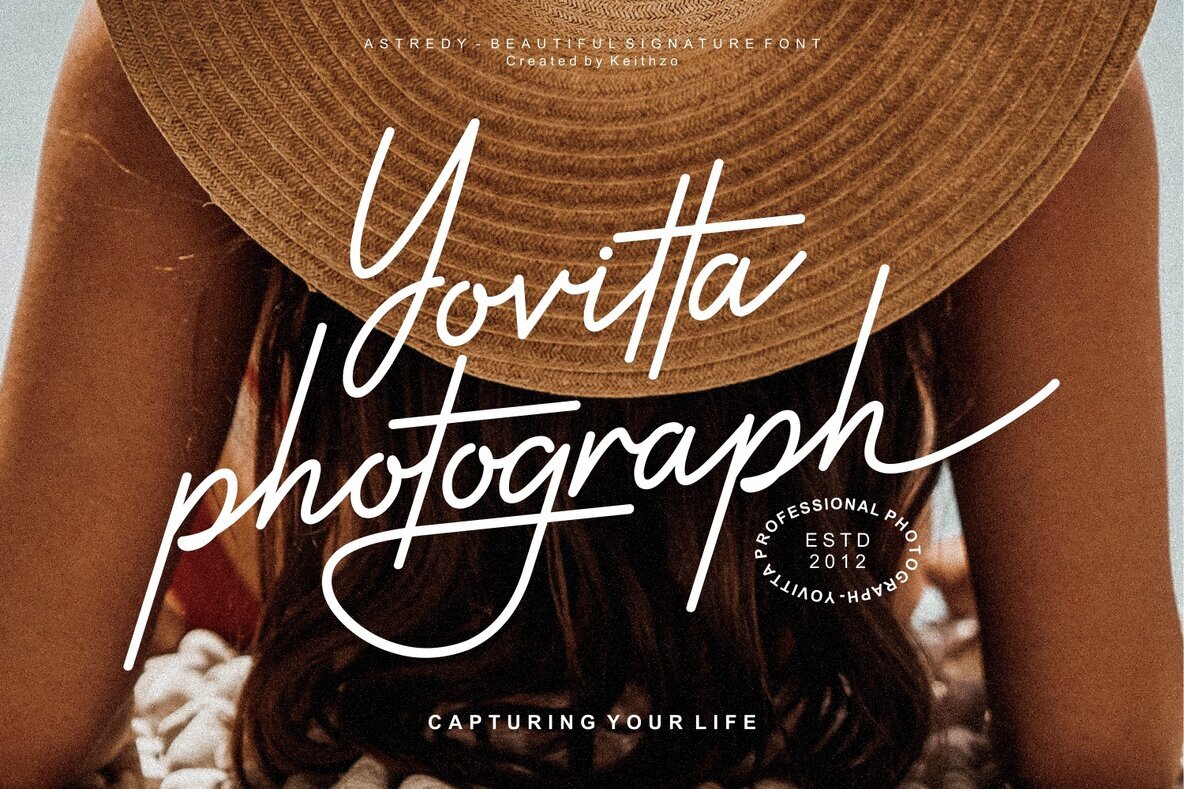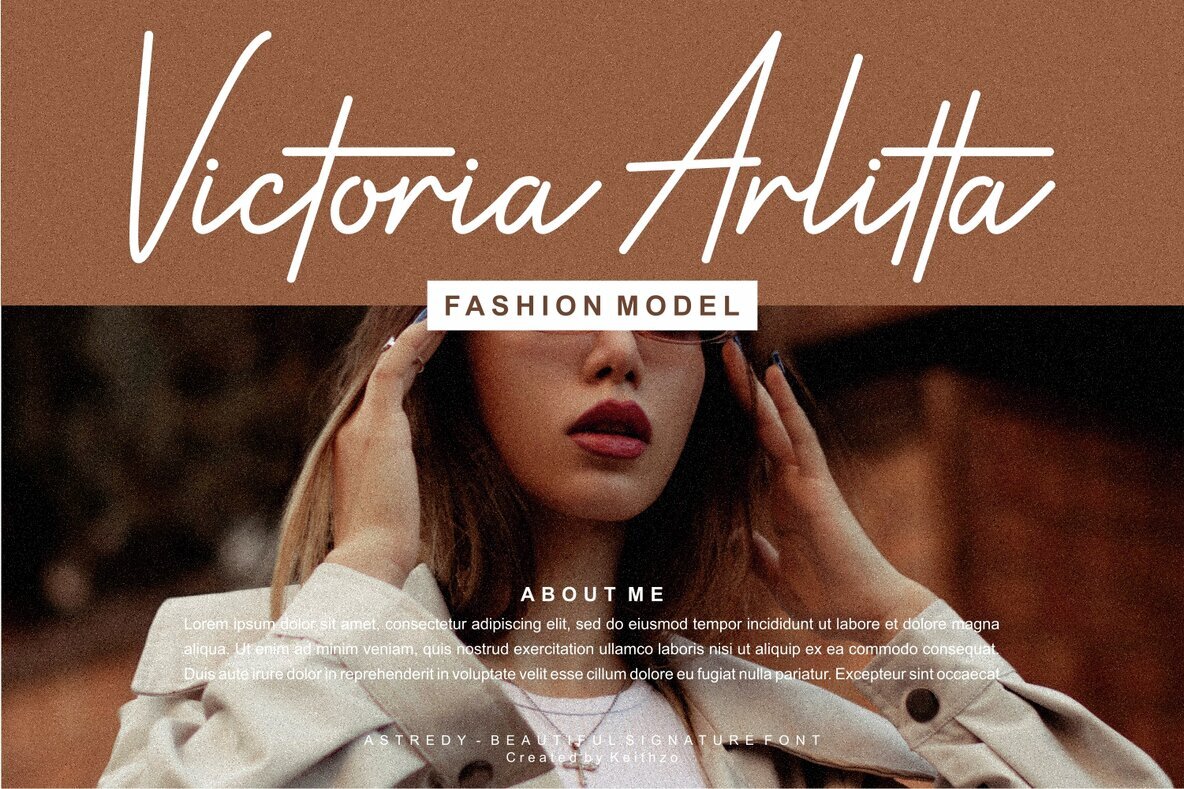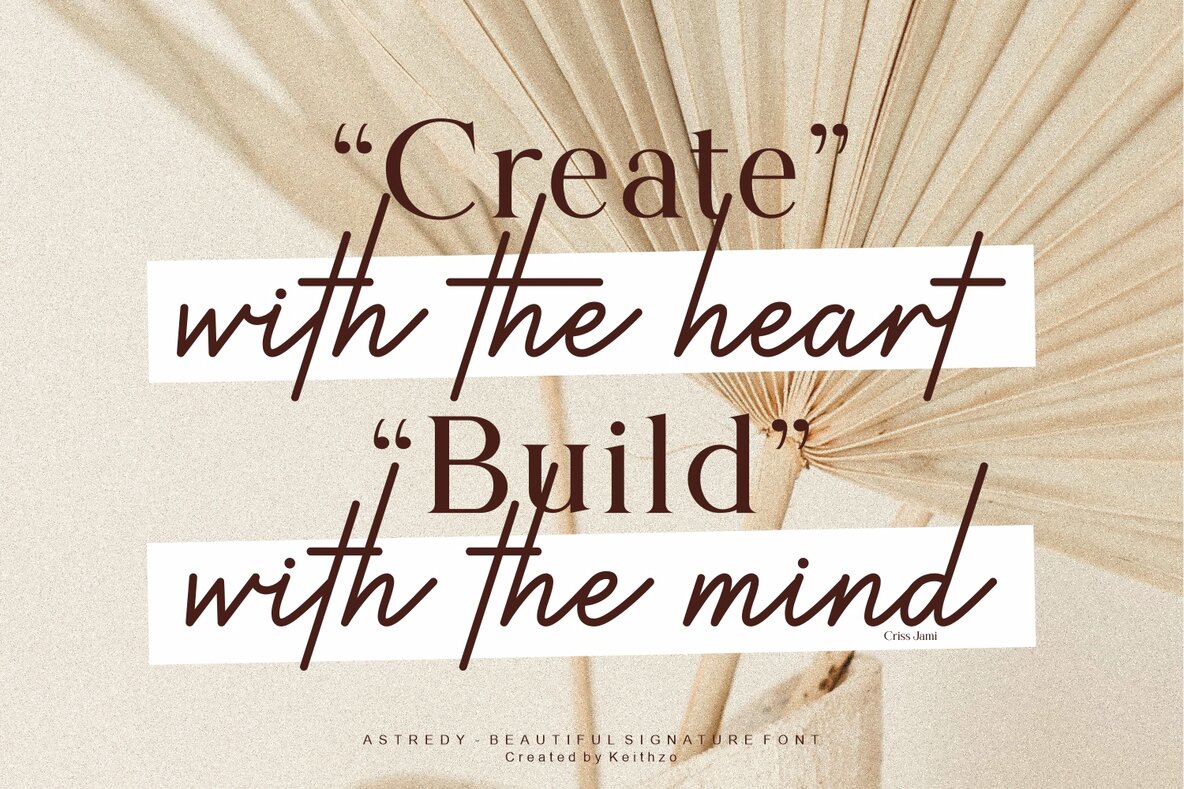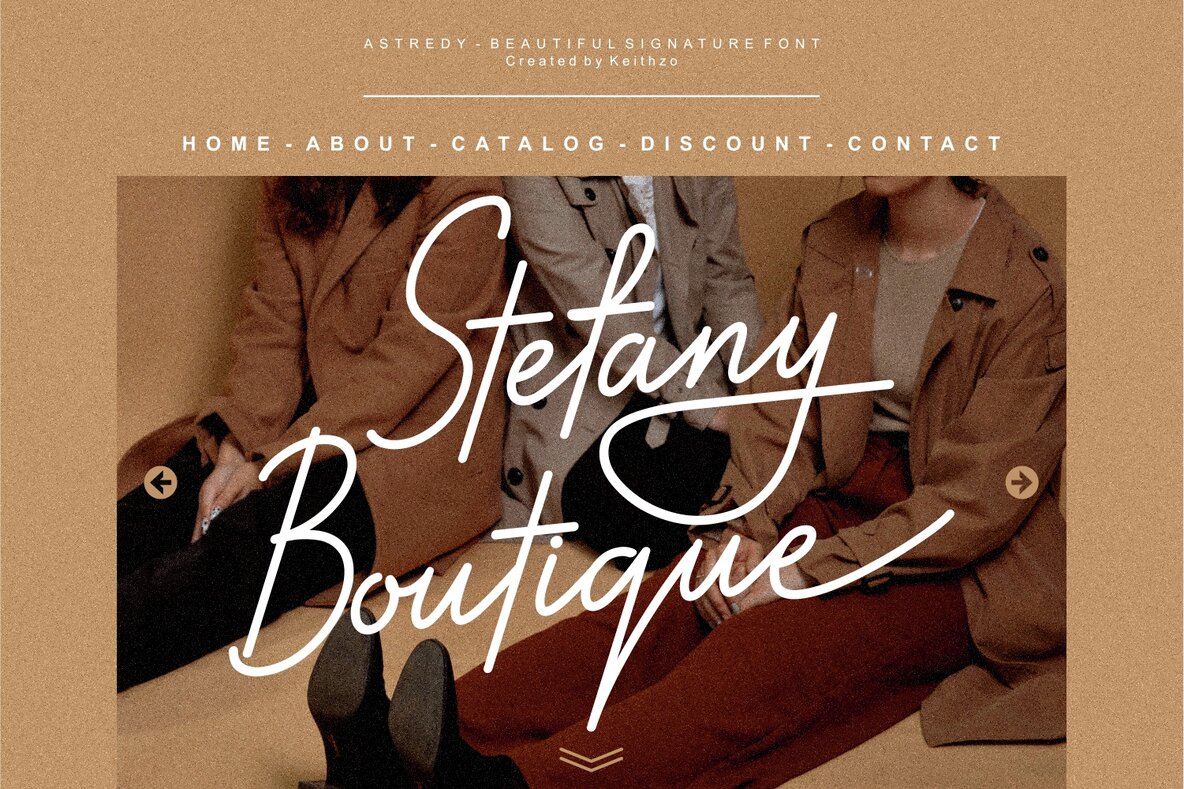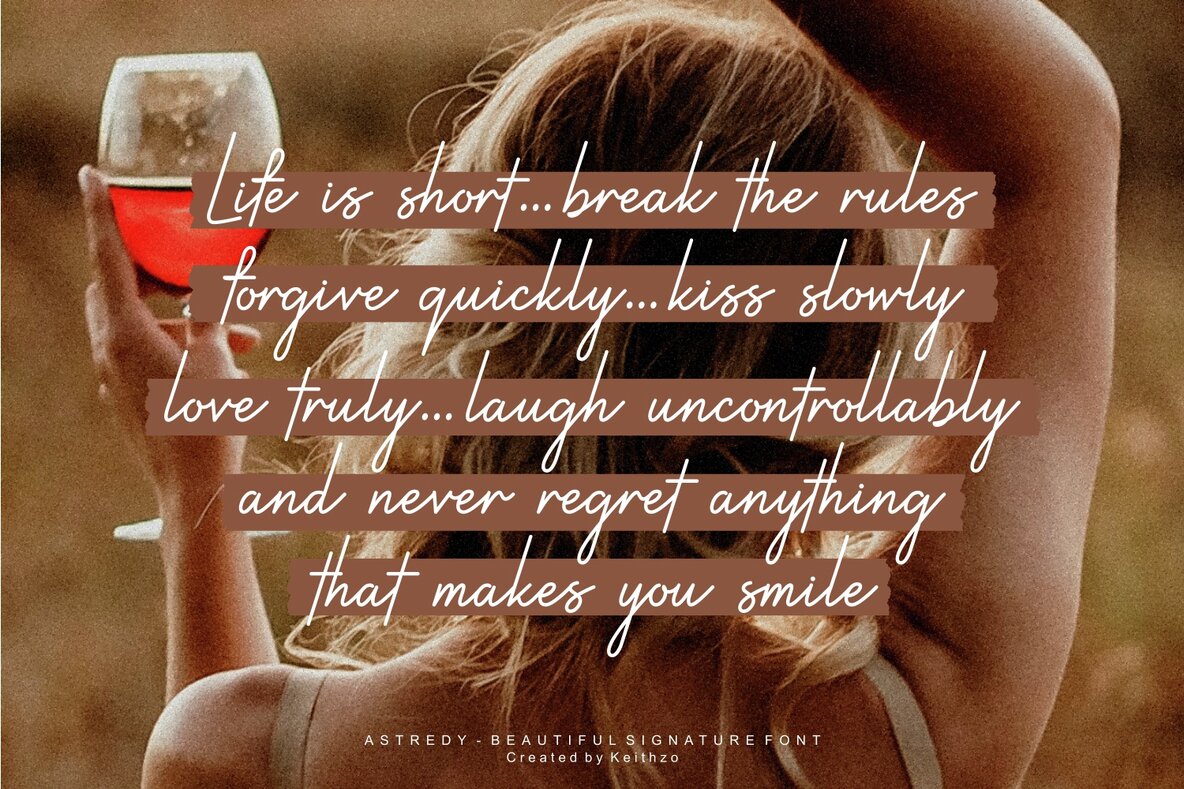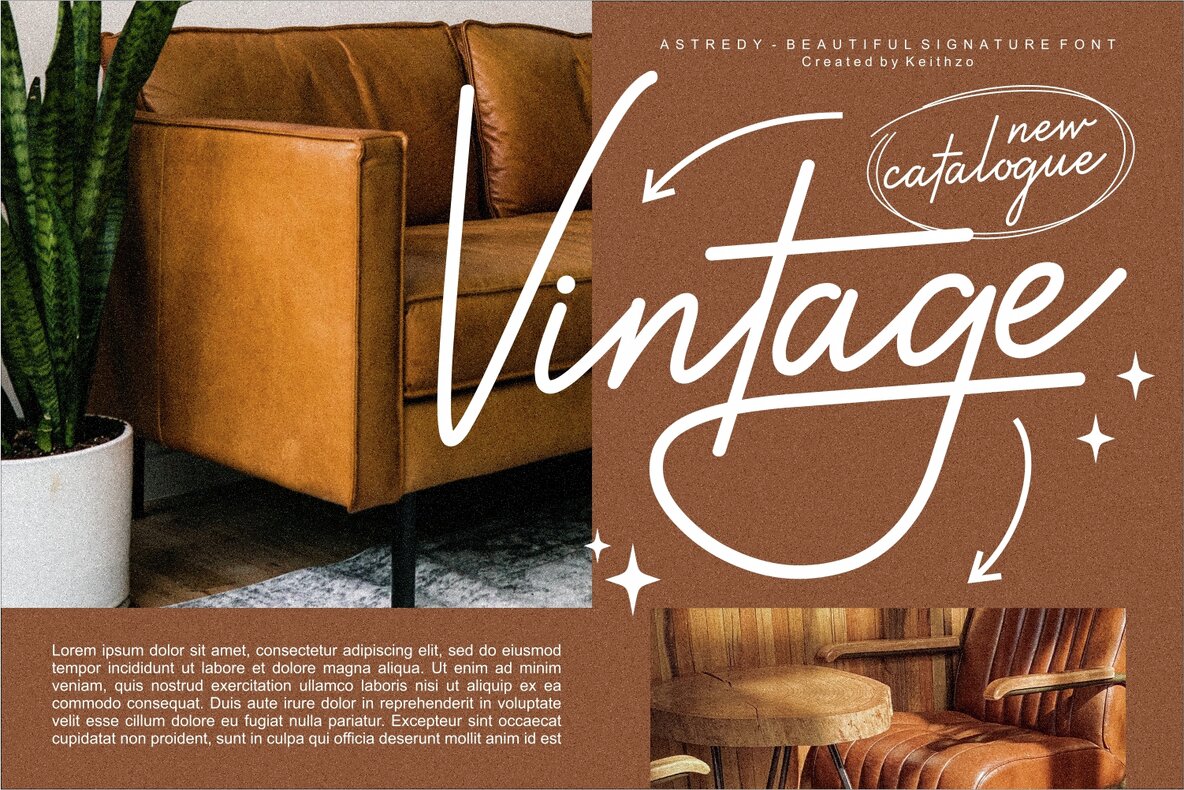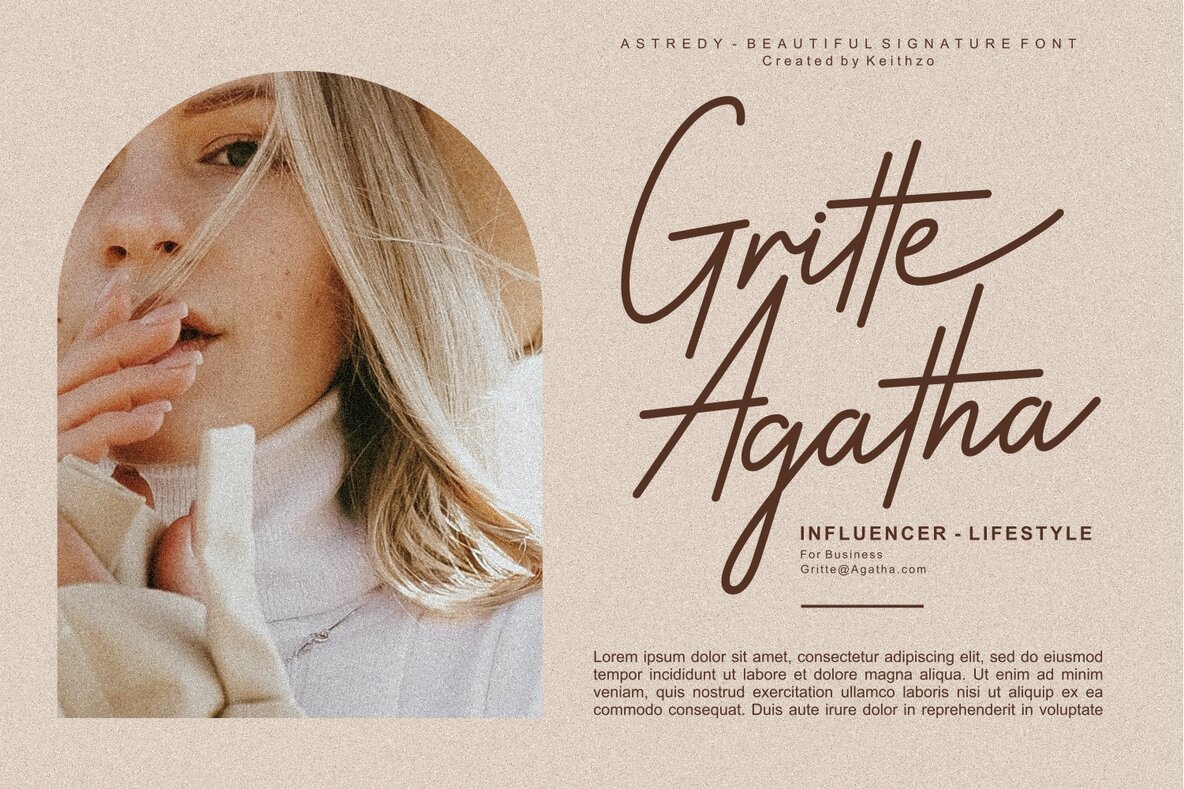
Astredy Font
Astredy
This stylish and beautiful handwritten font radiates charm and elegance. Its graceful, flowing lines and sophisticated curves create a look that is both graceful and refined, while its intricate details and gentle, natural imperfections add a touch of whimsy and personality. Perfect for adding a touch of timeless beauty to any design project.